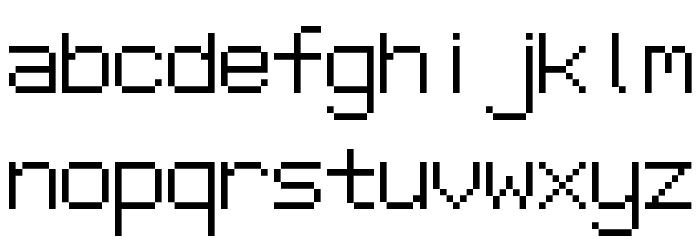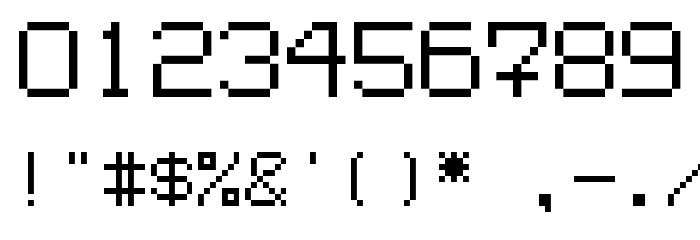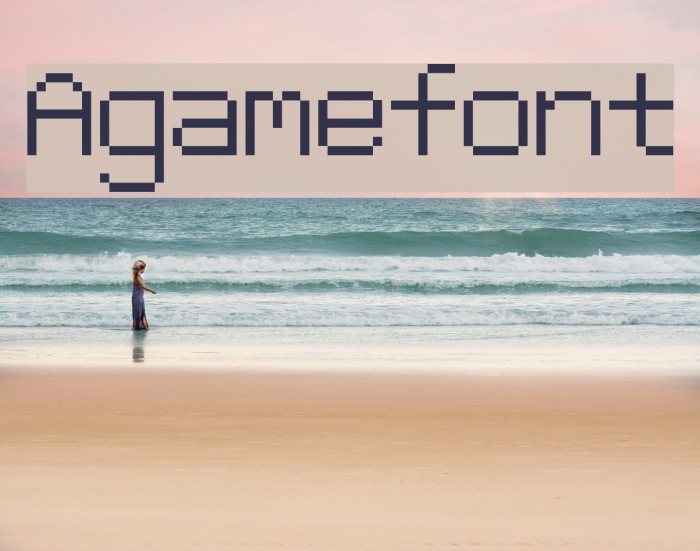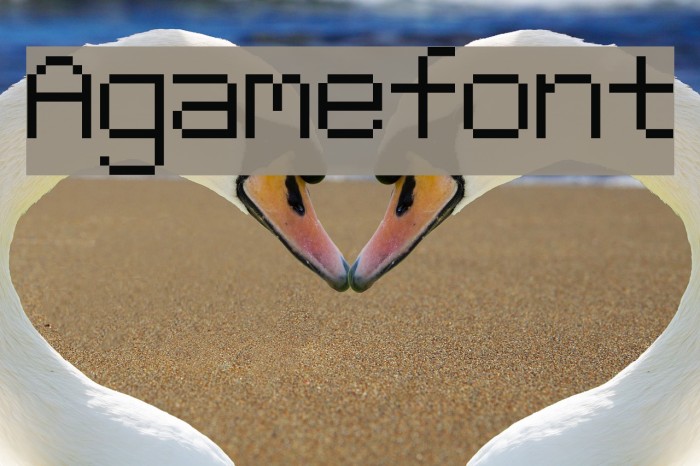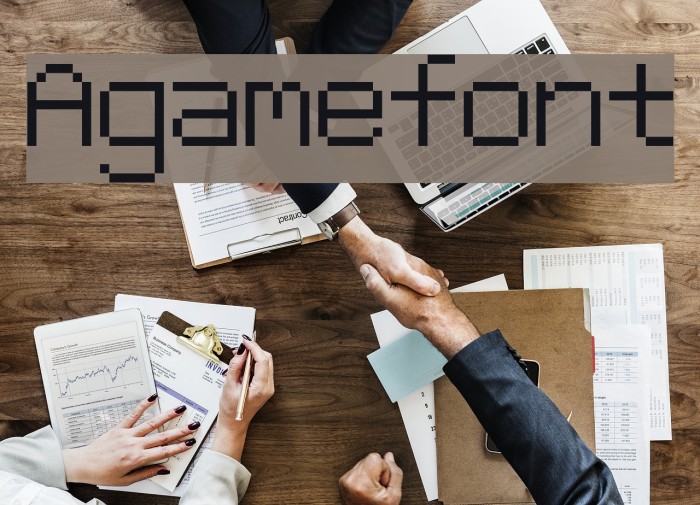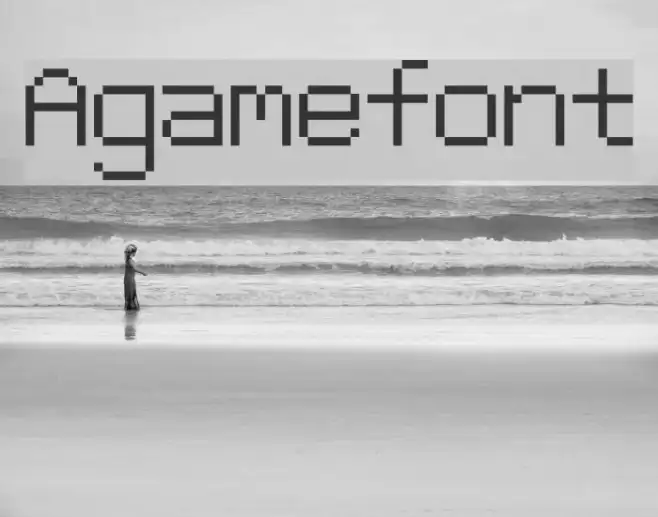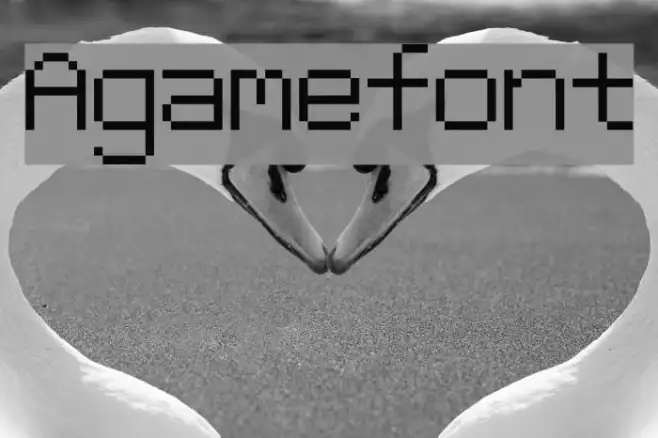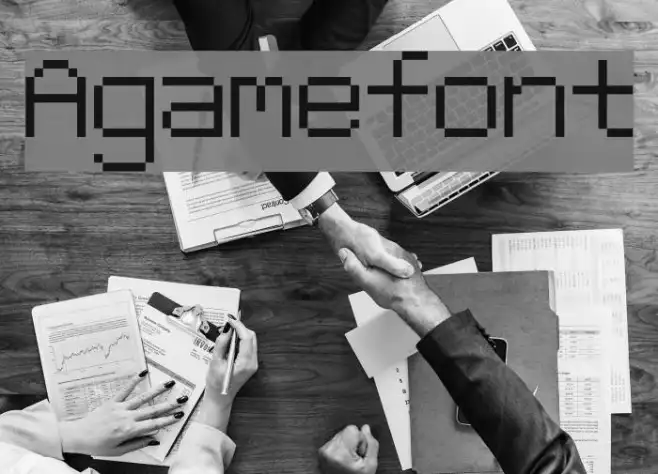
Agamefont Font
This font features a pixelated, grid-like design reminiscent of early digital displays and retro video games. Each character is constructed with uniform square blocks, giving it a distinctly geometric and structured appearance. The uppercase and lowercase letters maintain a consistent height, contributing to a cohesive and orderly look. The numerals and special characters follow the same pixelated style, ensuring visual harmony across all elements. This font's nostalgic aesthetic is perfect for projects that aim to evoke a sense of classic gaming or digital nostalgia.
A pixelated, retro-style font with a geometric, grid-like design.
- Proposed Projects: Ideal for retro video game graphics, digital art projects, tech-themed posters, and nostalgic branding.
- Overall Style: Vintage
- Use Case: Logos, Headlines, Digital displays